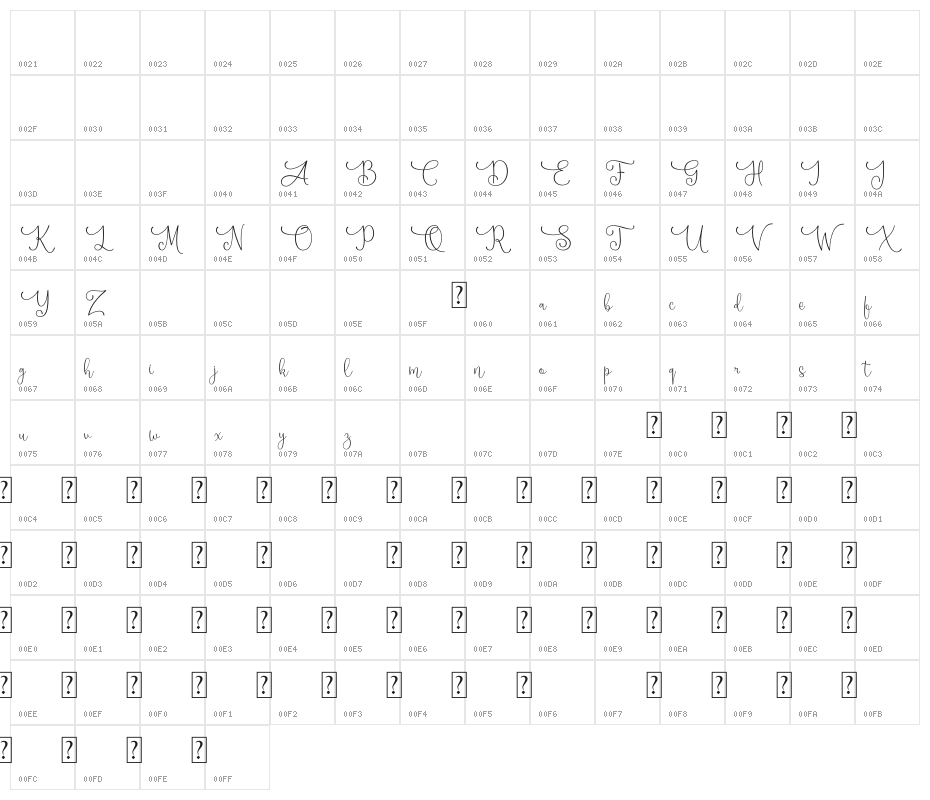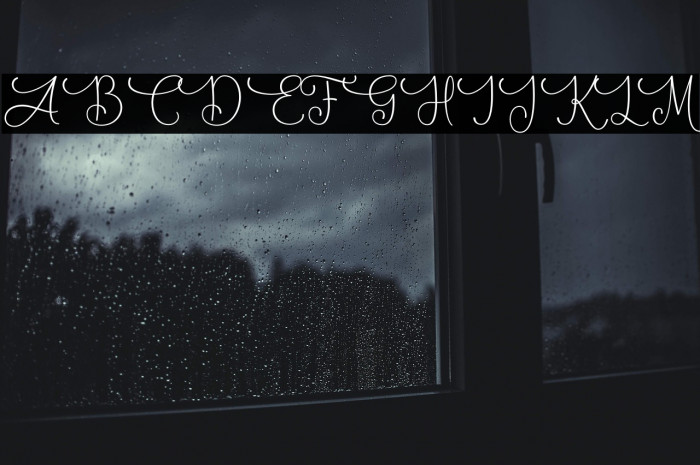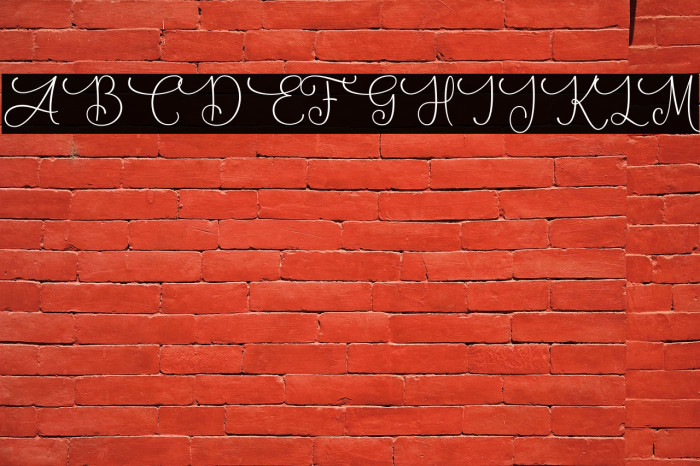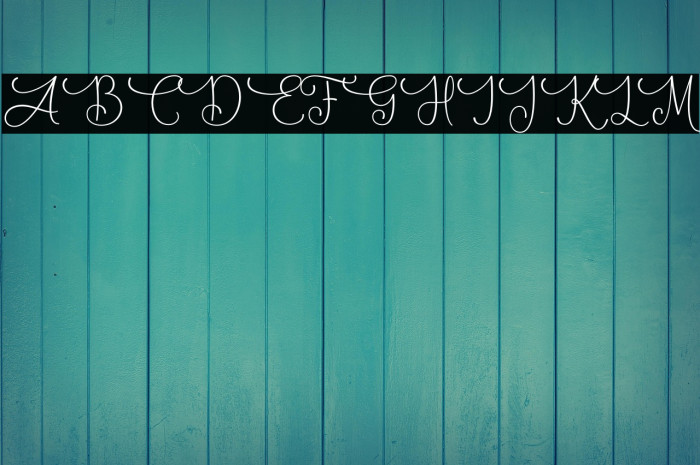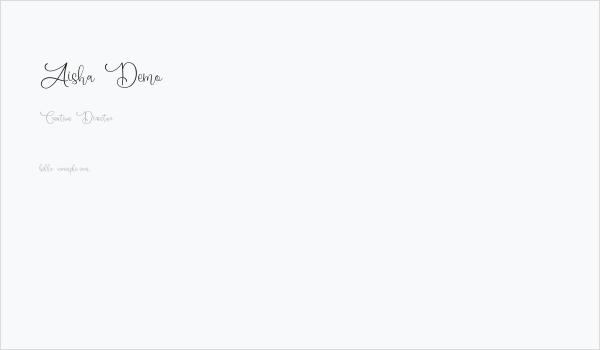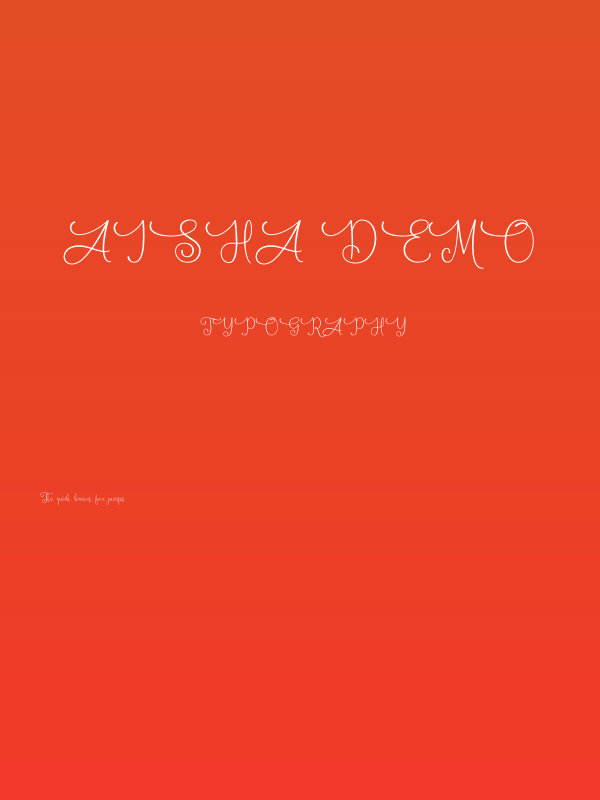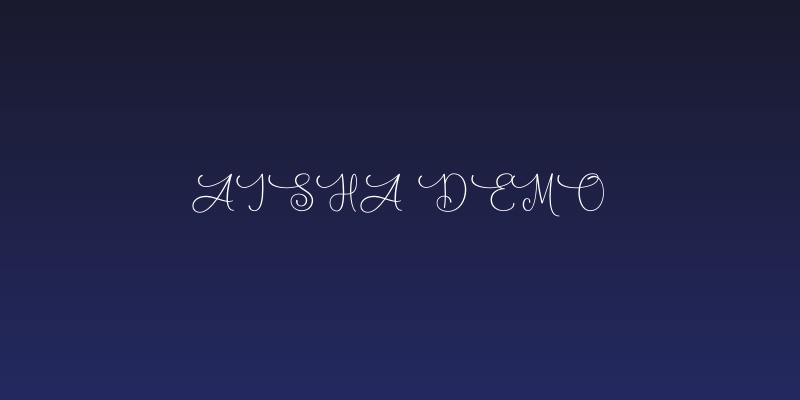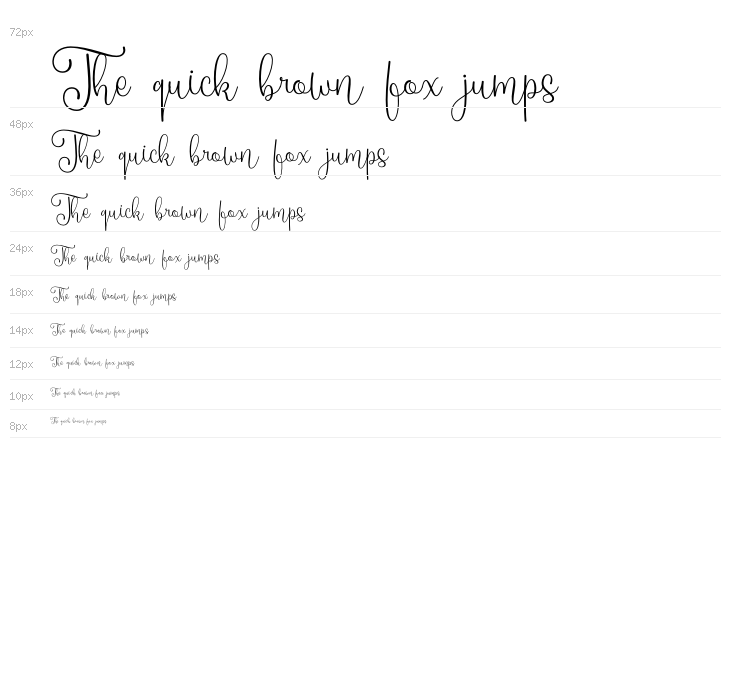
Aisha Demo Font
Aisha Demo Description
This font features an elegant and flowing script style, characterized by its intricate loops and swirls. The uppercase letters are particularly ornate, with each character displaying unique embellishments that add a touch of sophistication. The lowercase letters maintain a consistent fluidity, making them highly readable despite their decorative nature. The font's overall appearance is delicate and artistic, suitable for projects that require a personal and refined touch. It exudes a sense of grace and charm, making it ideal for invitations, greeting cards, and other creative designs.
| Use Case | Headlines, Invitations, Greeting cards |
| Proposed Projects | Ideal for wedding invitations, greeting cards, and elegant branding projects. |